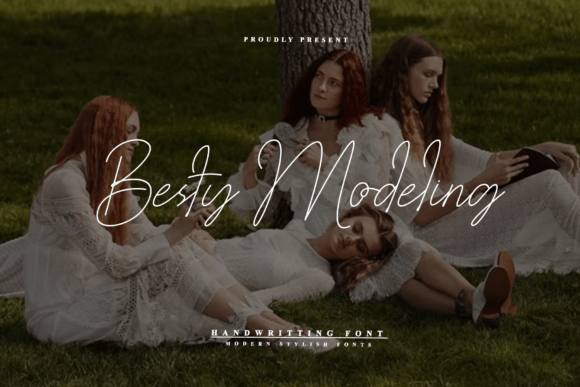
The Art of Beautiful Typography: Discovering the Besty Modeling Font
As a designer, there’s nothing quite like the thrill of bringing a creative idea to life. It’s that moment when you finally find the perfect font to match your vision, and everything falls into place. For me, that moment came when I stumbled upon the Besty Modeling Font. Its elegant, handwritten script style had me hooked from the start.
Besty Modeling Font is a masterfully crafted typeface that exudes sophistication and charm. With its smooth strokes and ornate curves, it’s the perfect choice for custom sublimation designs, boutique branding, and personalized gifts. As a designer, you’ll appreciate its consistent weight and clean connections, which ensure excellent legibility and make it a joy to work with.
Key Features of Betsy Modeling Font
- Unique Characteristics: Betsy Modeling Font features a unique blend of modern and vintage elements, with intricate details and subtle textures that evoke a sense of nostalgia and sophistication.
- Line Work and Details: The font’s intricate line work and detailed illustrations make it an ideal choice for designers who want to add a touch of whimsy and personality to their projects.
- Legibility and Readability: Despite its intricate details, Betsy Modeling Font is designed to be highly legible and readable, making it suitable for a wide range of applications, from body text to headings.
- Customization Options: The font includes a range of customization options, including ligatures, swashes, and alternate characters, allowing designers to add a personal touch to their projects.
Besty Modeling Font Review
Overall, I’d say the Besty Modeling Font is an interesting addition to the world of typography. Here’s my honest take on it:
- The font’s unique blend of modern and classic elements makes it stand out from the crowd.
- It’s highly versatile and can be used for a wide range of projects, from logos to body text.
- The font’s bold lines and curves add a touch of sophistication to any design.
- The font’s irregularities can sometimes make it difficult to read, especially in smaller sizes.
- The font’s weight range is somewhat limited, making it less suitable for projects that require a wide range of font weights.
Overall, the Besty Modeling Font is a solid choice for designers who want to add a touch of uniqueness to their work. While it has its limitations, its versatility and sophistication make it a great option for a wide range of projects. Just be sure to carefully review the licensing terms before using it in your designs.
For optimal results, use Besty Modeling Font for titles and headings to add a touch of sophistication and elegance. Experiment with different font sizes and colors to create visual hierarchy and balance in your design.
Besty Modeling Font is ideal for:
- High-end fashion and beauty branding
- Luxury product design and packaging
- Editorial and advertising content